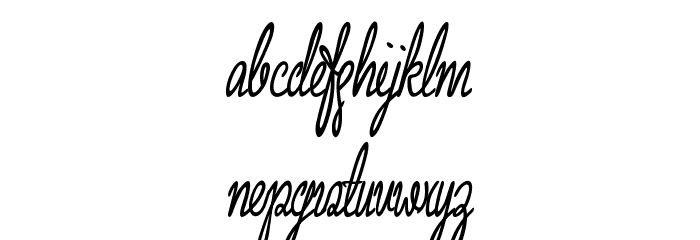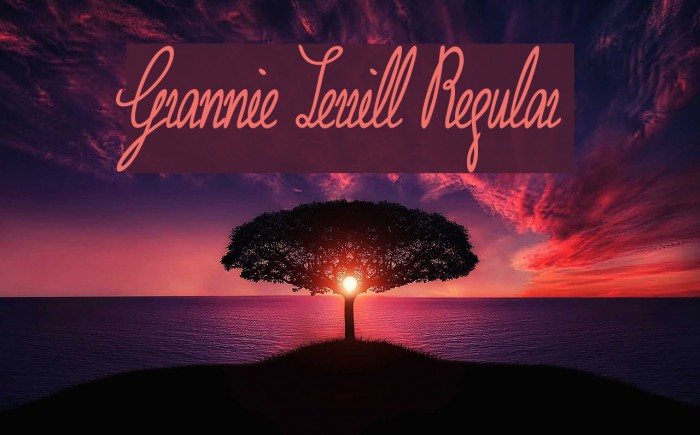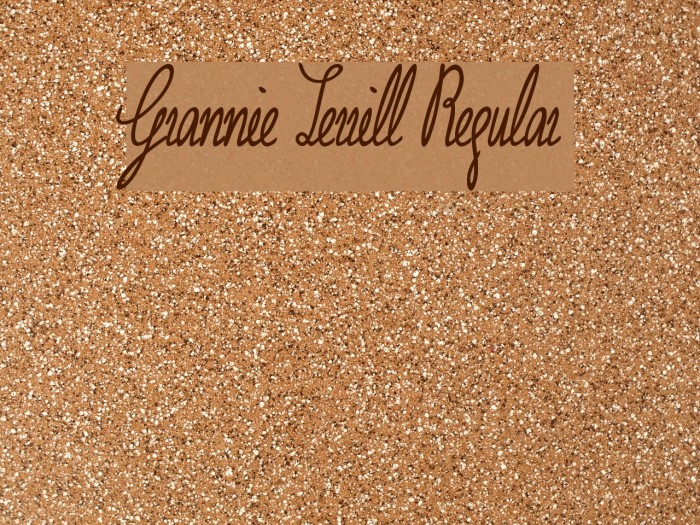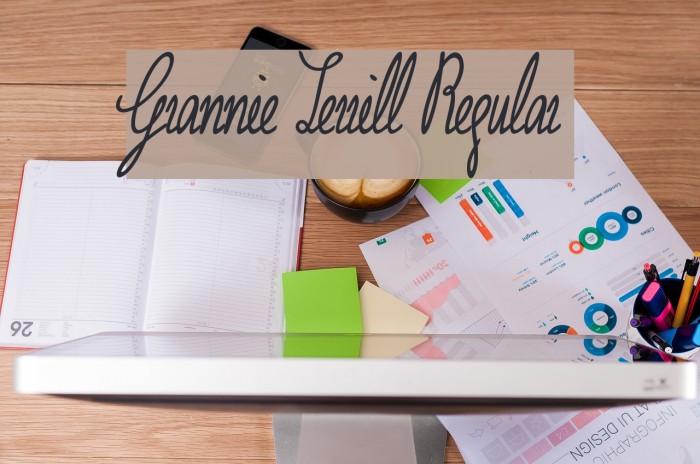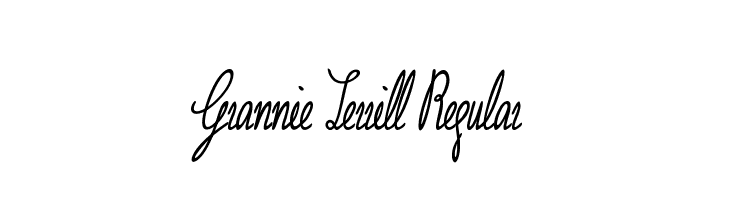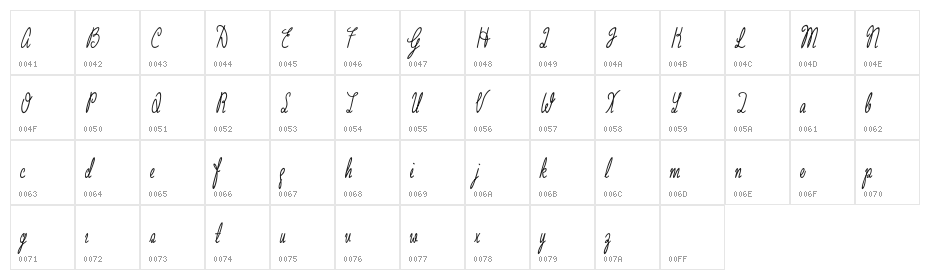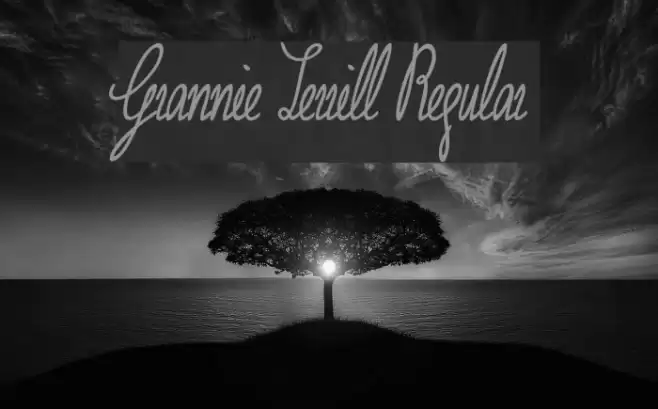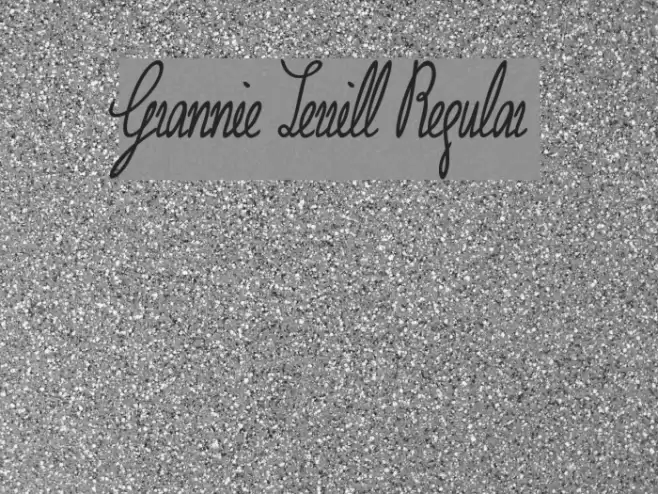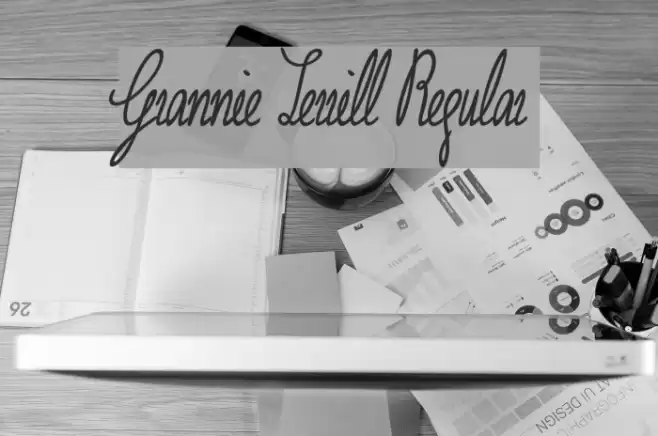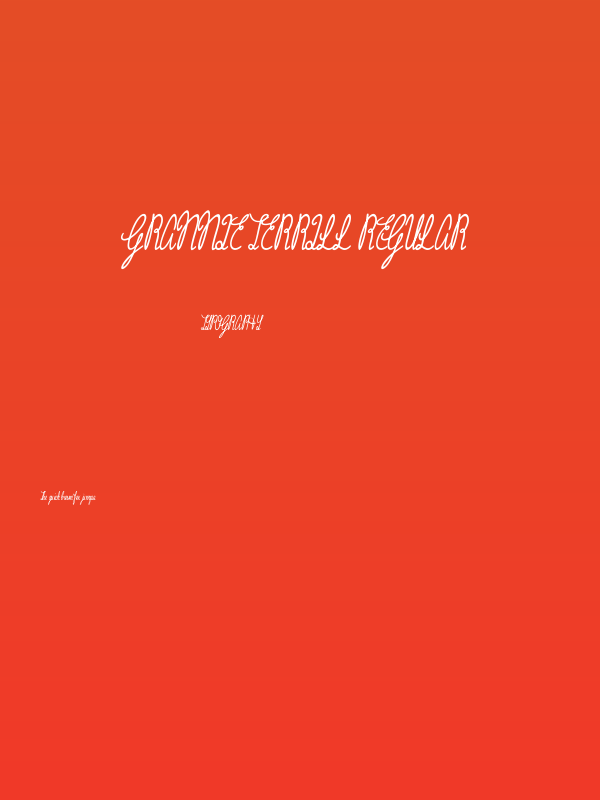
Grannie Terrill Regular Font
This font features an elegant and flowing script style that mimics the fluidity of cursive handwriting. The characters are intricately designed with a consistent slant, giving a sense of motion and grace. Each letter is connected, enhancing the seamless appearance typical of handwritten scripts. The uppercase letters are bold and prominent, while the lowercase letters maintain a delicate balance, offering a harmonious blend. The font's overall aesthetic is sophisticated and refined, making it suitable for formal and decorative purposes. The numerals and special characters are crafted to match the script's elegance, ensuring a cohesive look across all text elements.
An elegant, flowing script font with a cursive, handwritten style.
- Proposed Projects: Ideal for wedding invitations, greeting cards, elegant branding, and decorative headings.
- Character Spacing: Tight
- Use Case: Headlines, Logos, Invitations